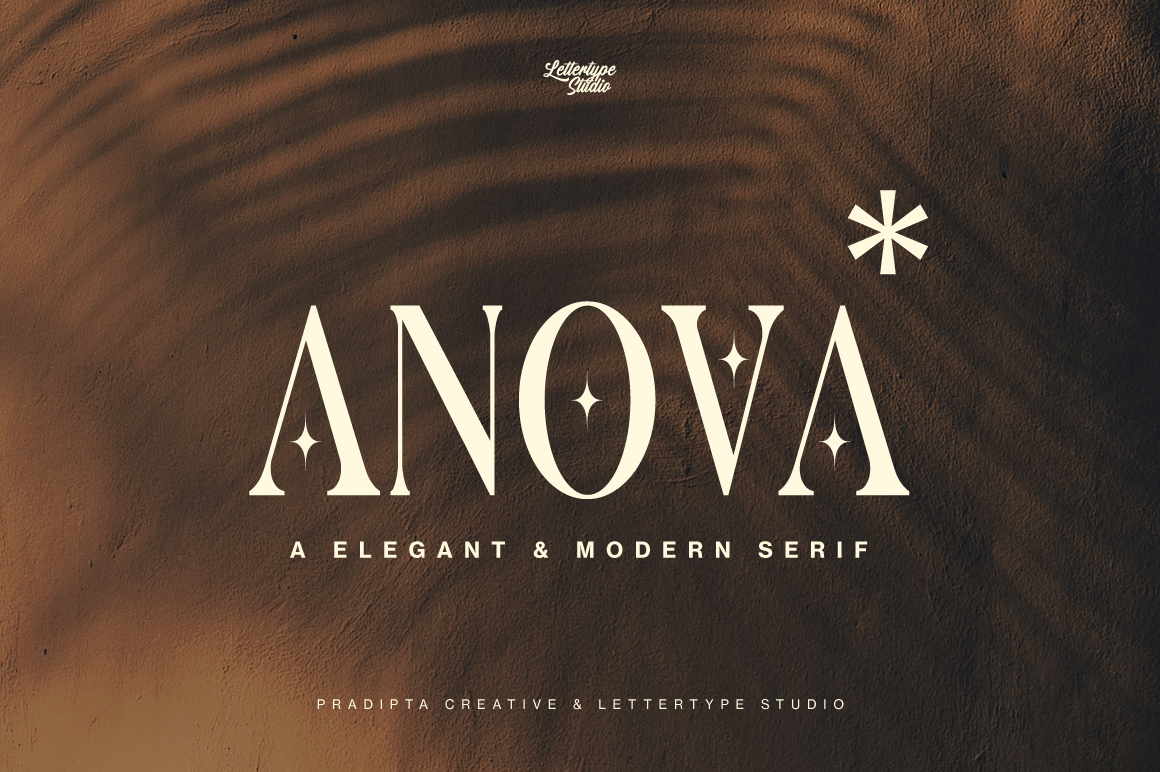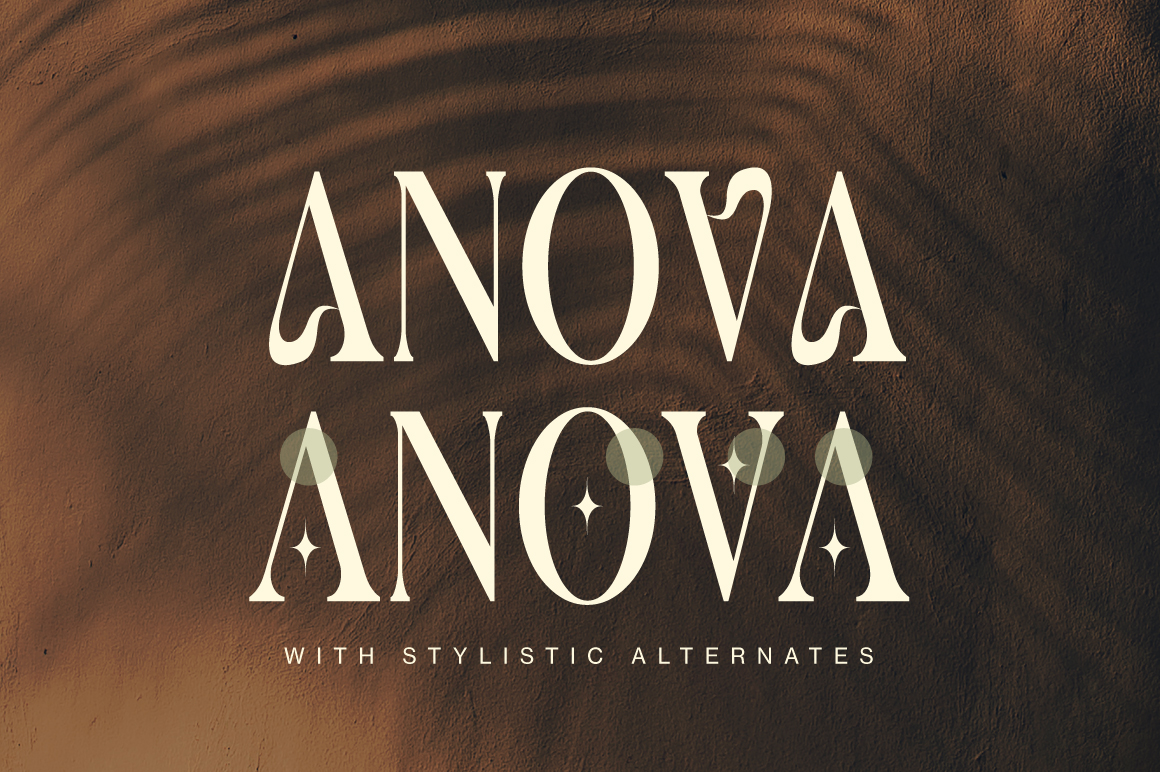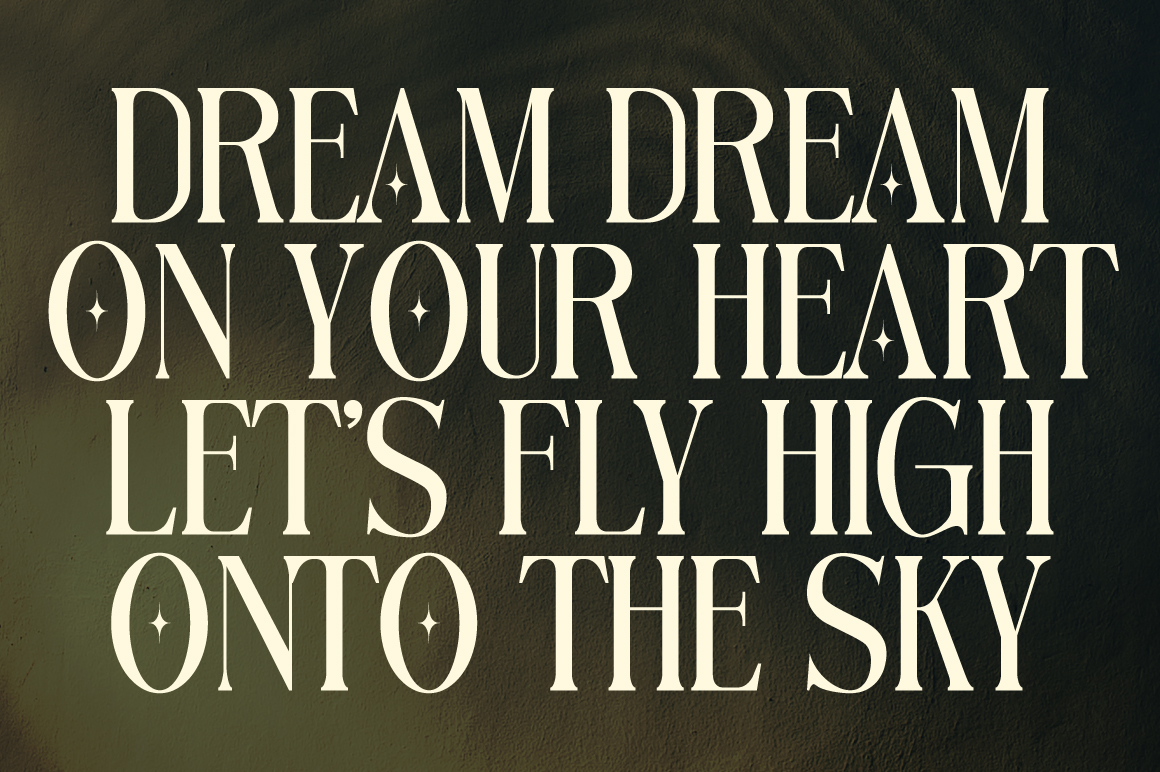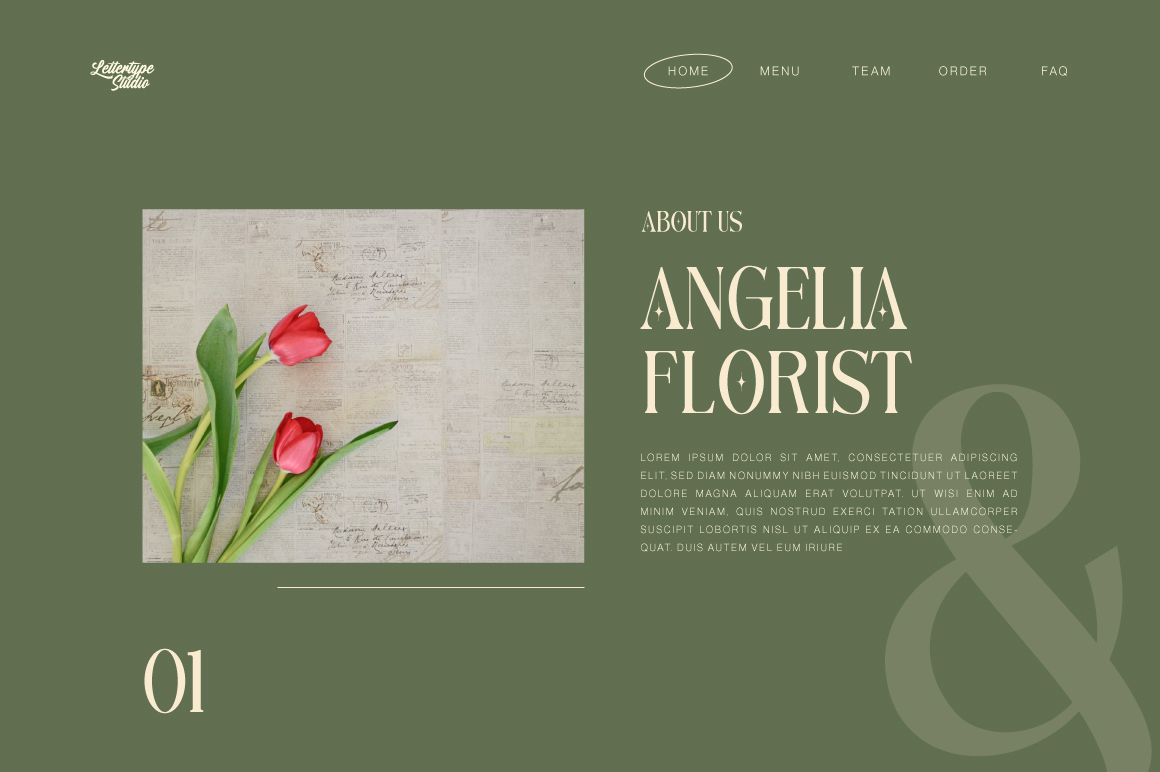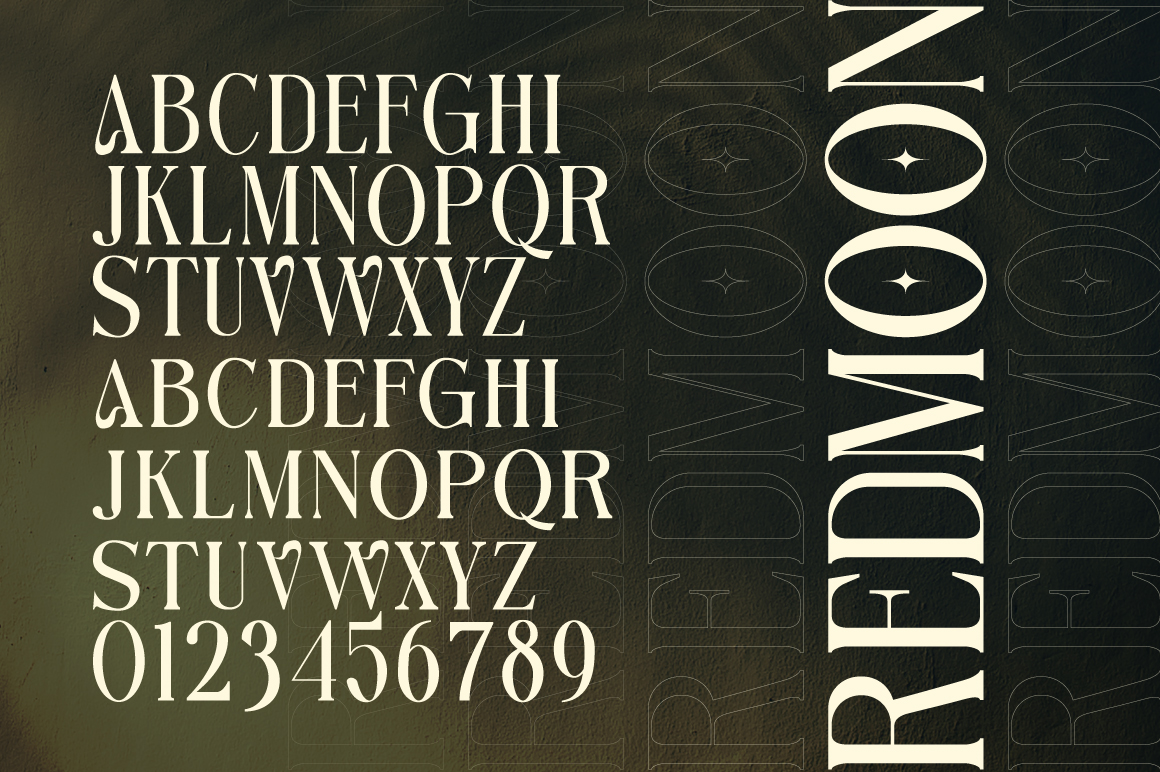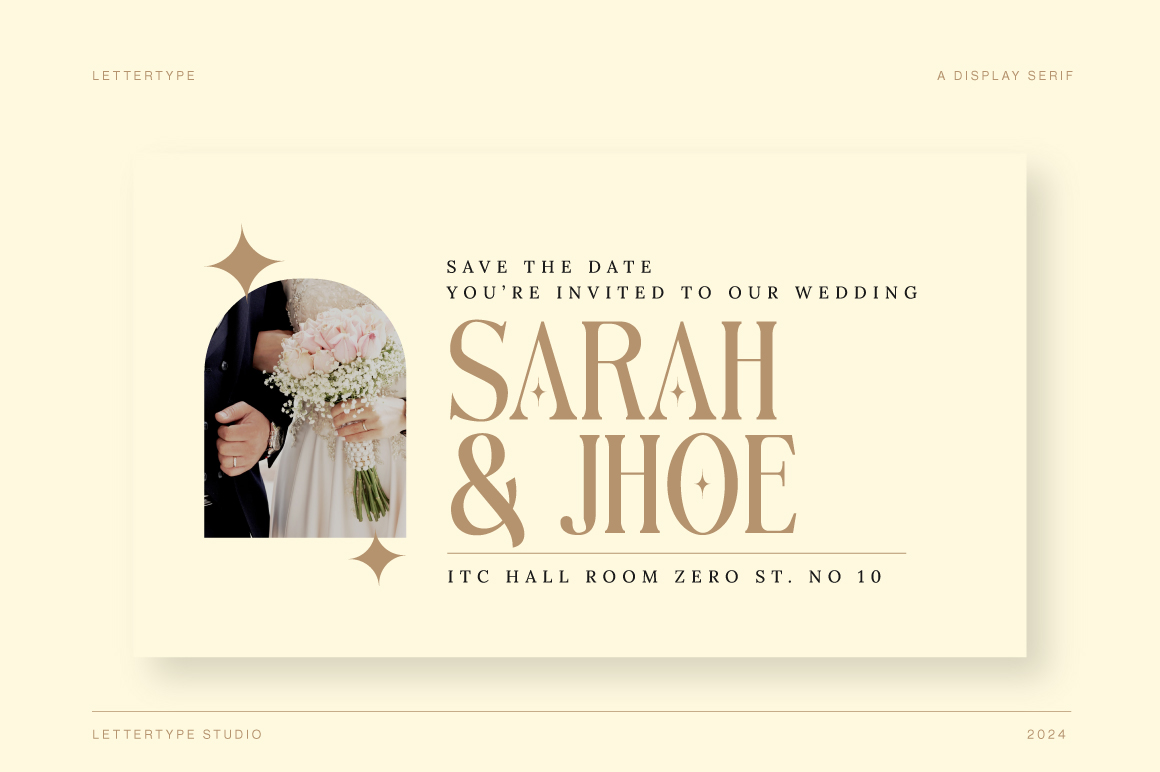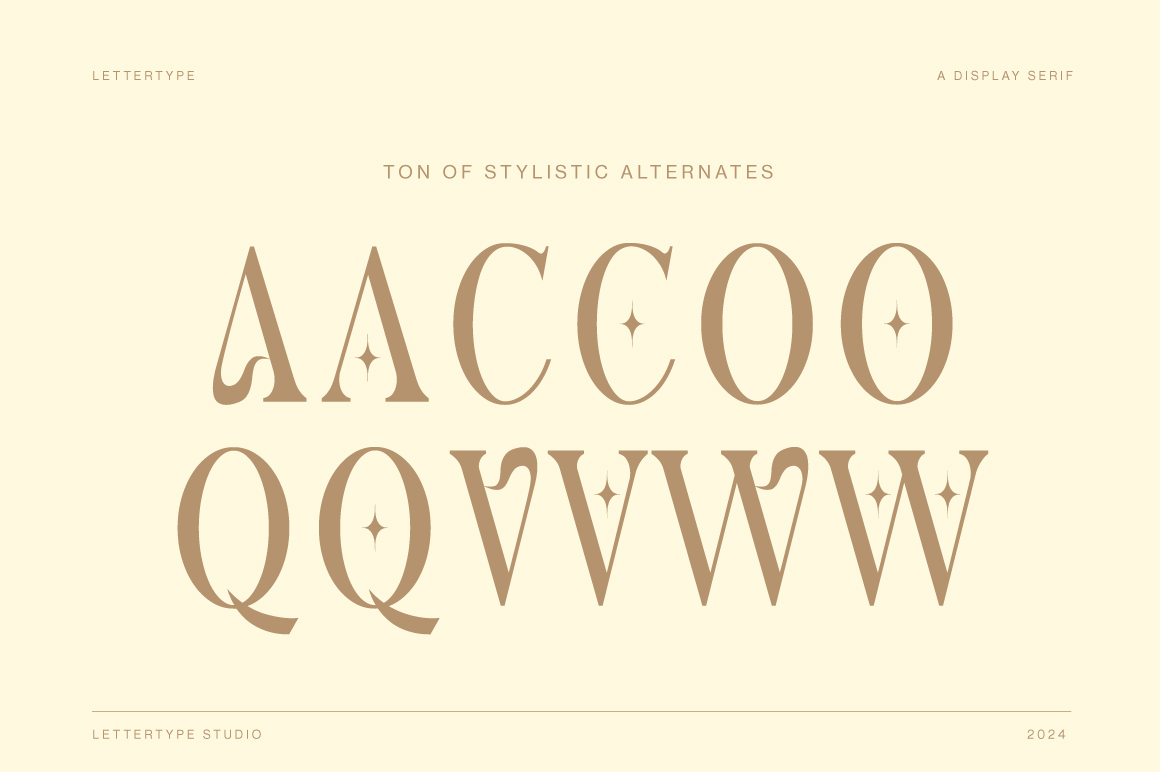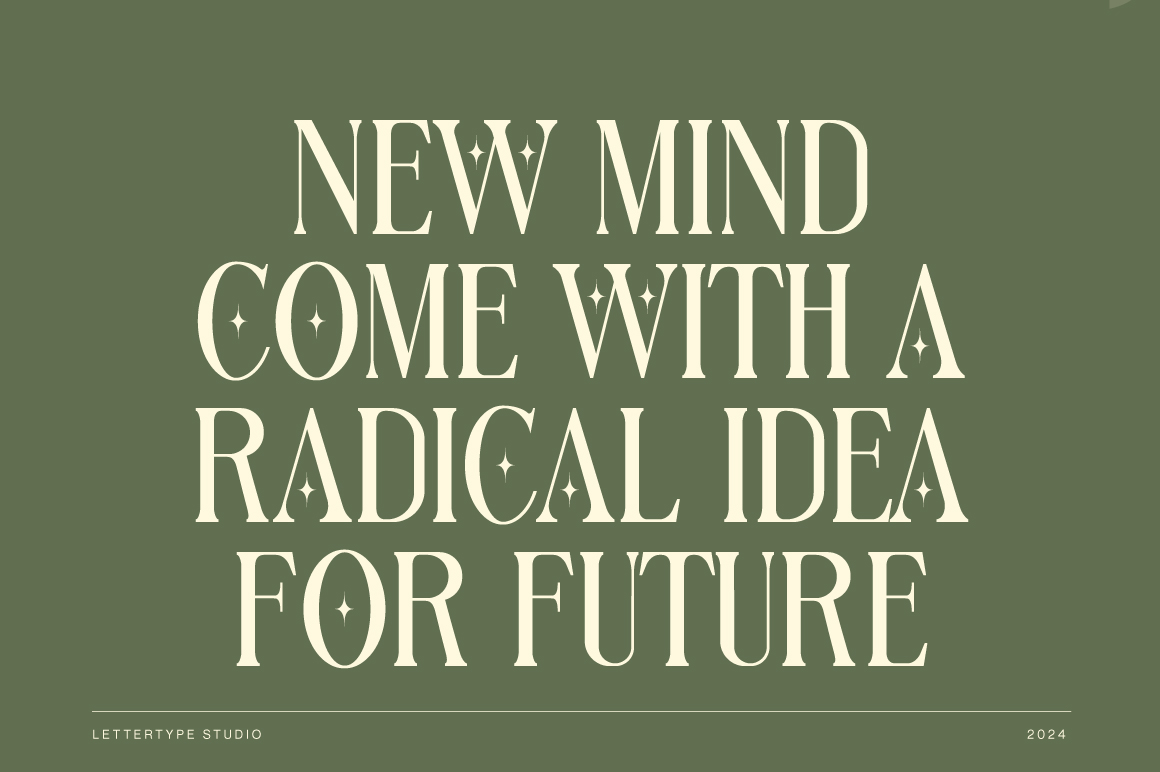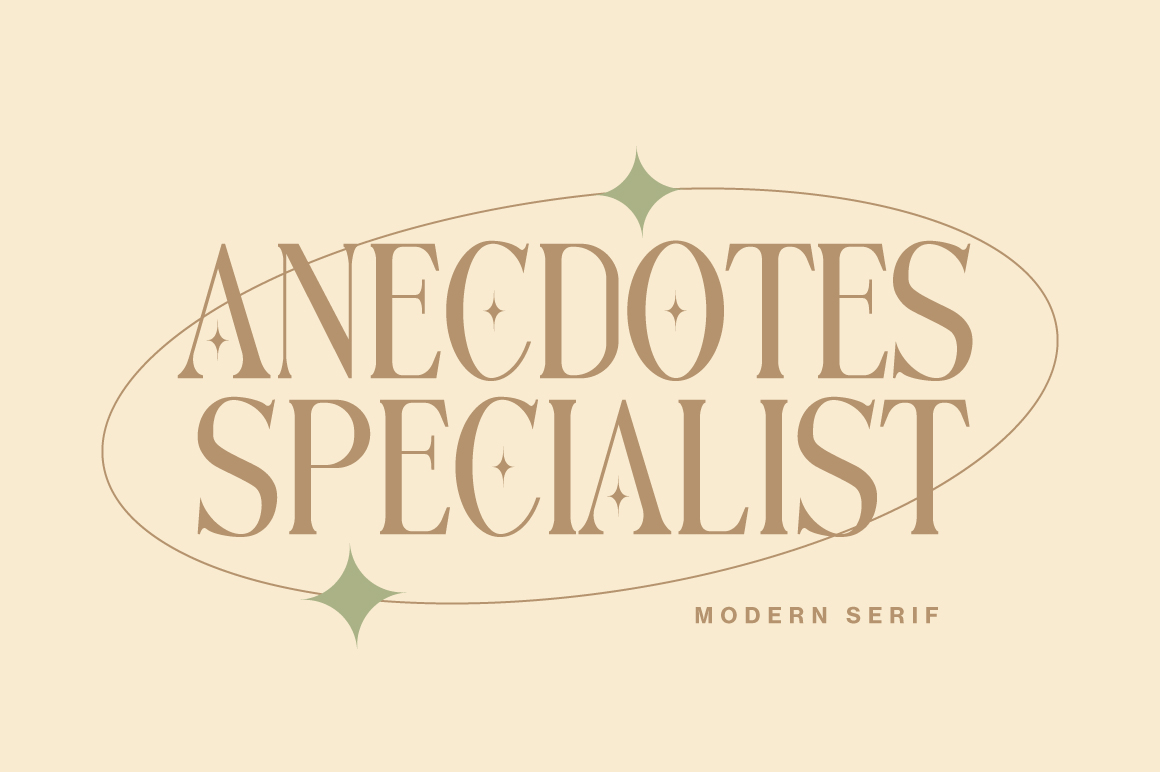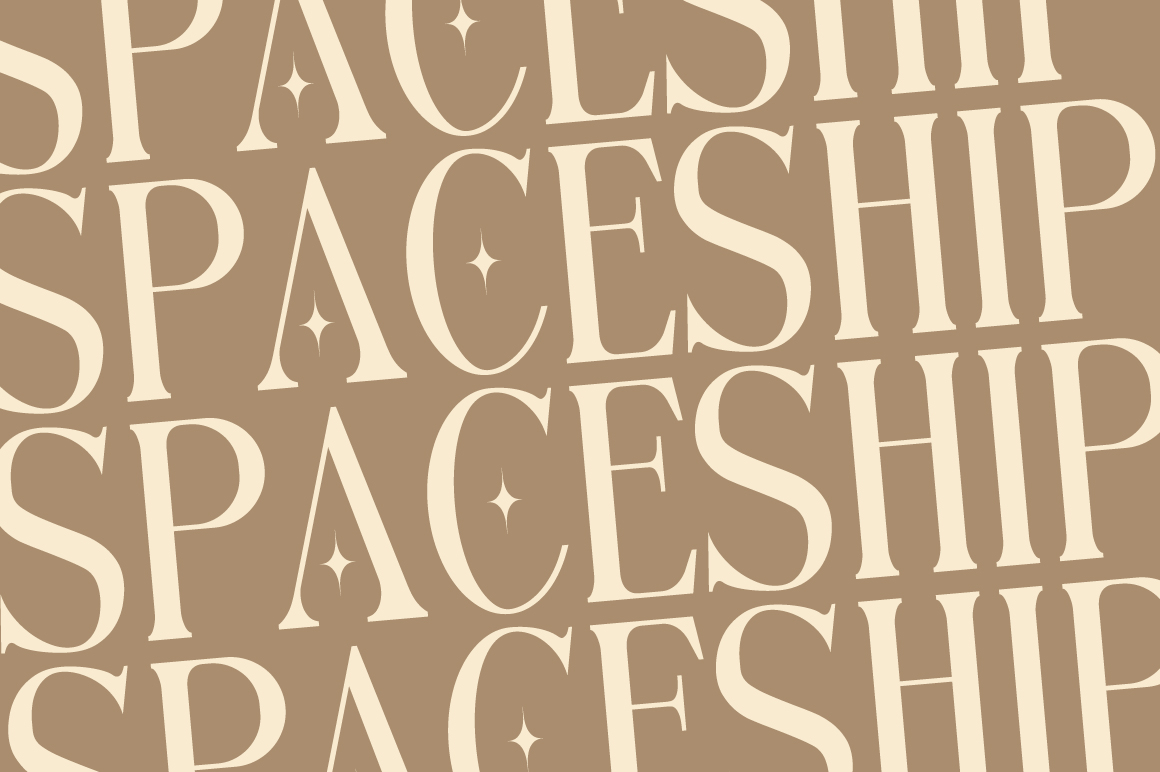
Anova
Anova is an elegant modern serif font that merges timeless luxury with a refined contemporary feel. Its clean curves and sophisticated details make it a perfect choice for high-end design projects that demand class and readability.
Ideal for logos, fashion branding, wedding invitations, packaging, and editorial layouts, Anova gives your work a luxurious and polished appearance. Designed to balance modern simplicity with classic grace, it’s the go-to serif for designers who value style and versatility.
Anova Features:
• Alternates & Ligature